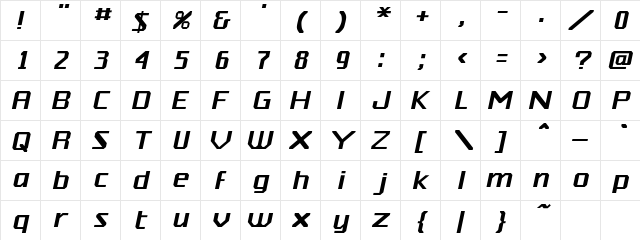
MyraloSSK Italic
Design Context for MyraloSSK Typeface
MyraloSSK is a composed and adaptable typeface that performs quietly and consistently across a wide range of design contexts. The slanted form adds forward momentum and visual energy.
Pro Tip: Try MyraloSSK for annotation and caption copy alongside an upright companion — the contrast in angle creates a dynamic but ordered typographic system.